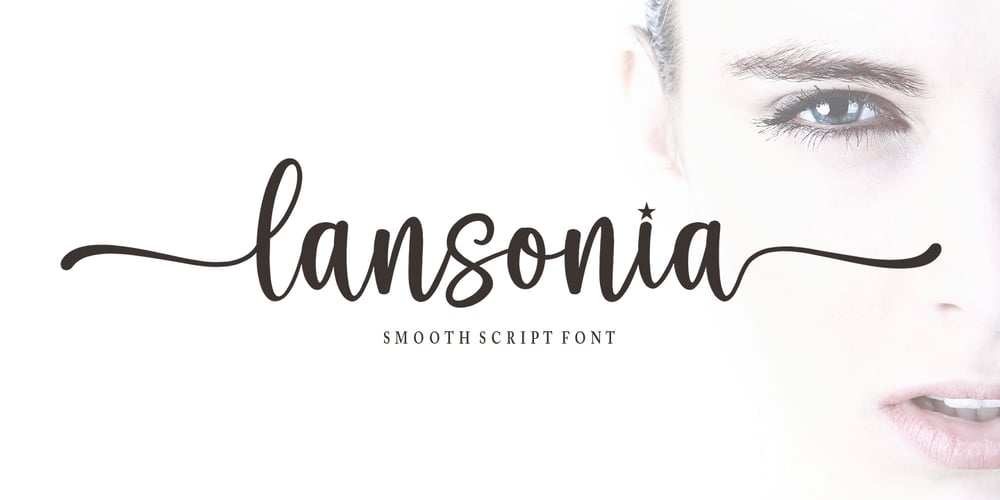
Lansonia
Lansonia font
Lansonia Font Family was designed by Mu Fazzal and published by Bosstypestudio. Lansonia contains 2 styles and family package options. Lansonia is a modern calligraphy font with a dancing baseline and a clean, classic and elegant touch.It can be used for various purposes such as headings, signature, logos, wedding invitations, t-shirt, letterhead, signage, lable, news, posters, badges etc.Hello Bella Script features 300 total glyphs with 100 alternate characters including OpenType Stylistic alternates, ligatures and international language suppor